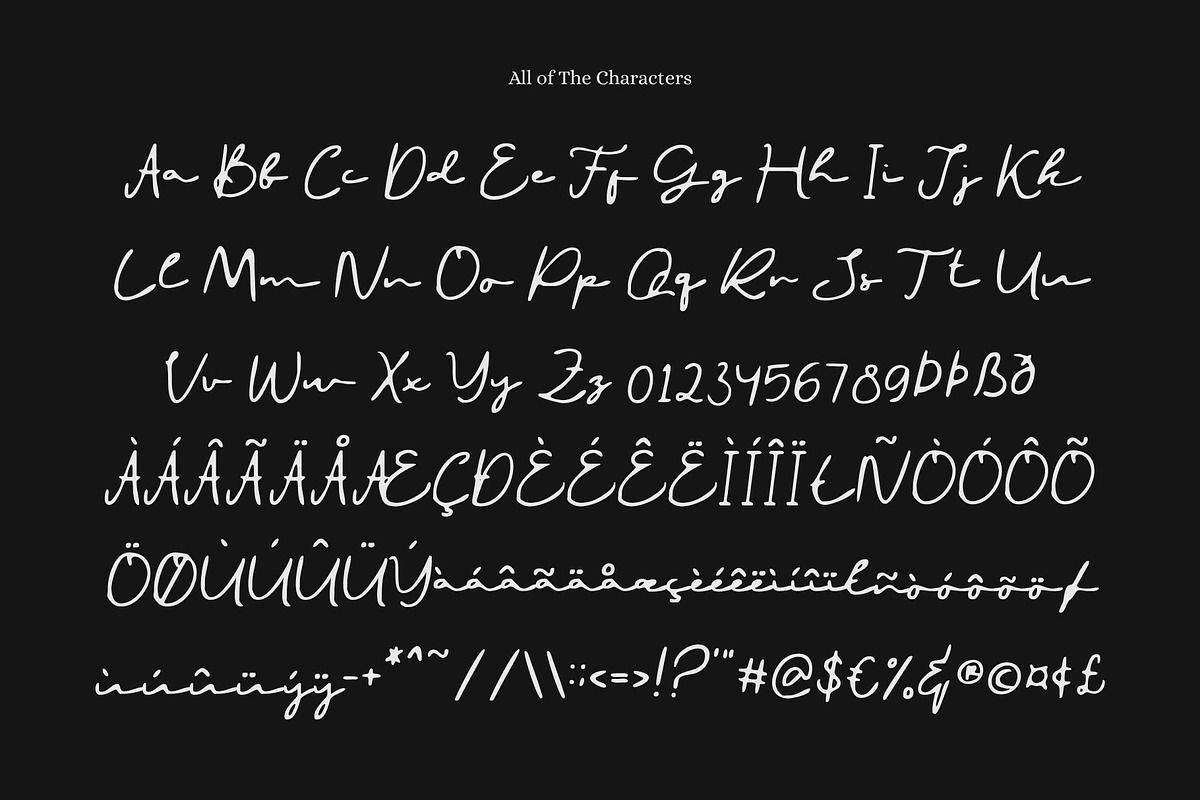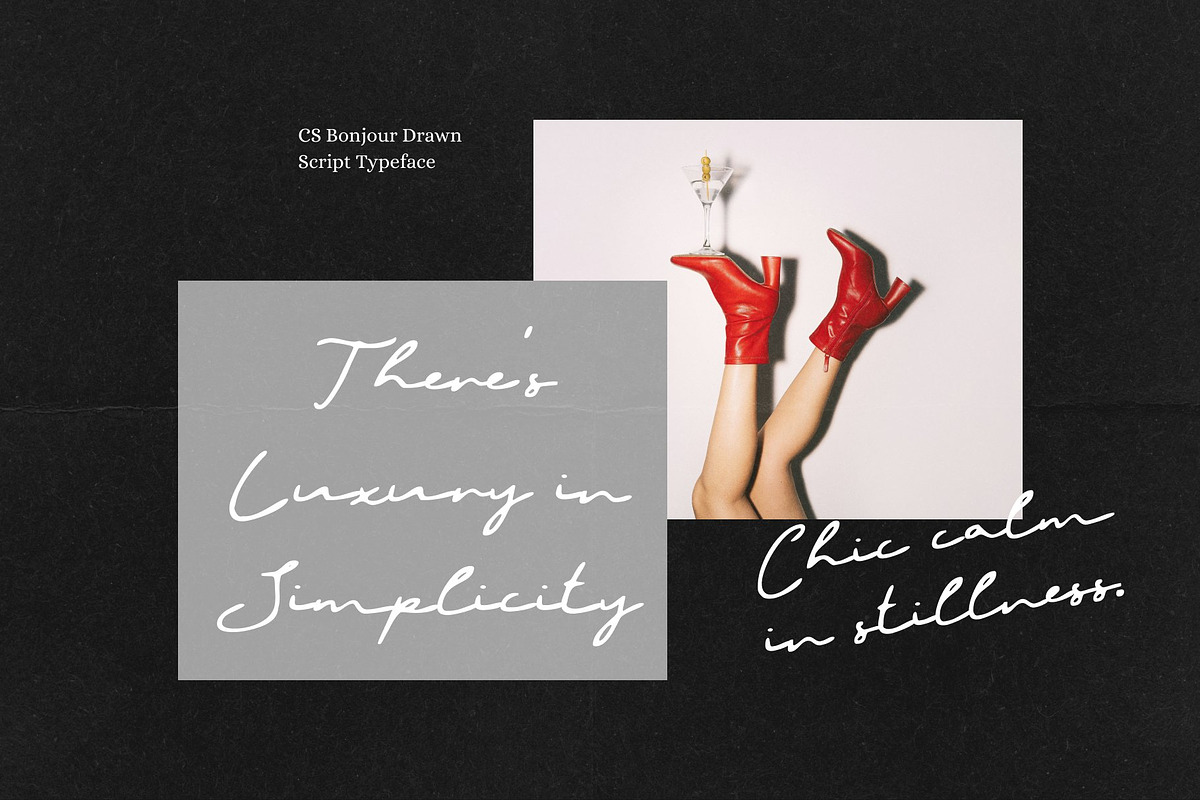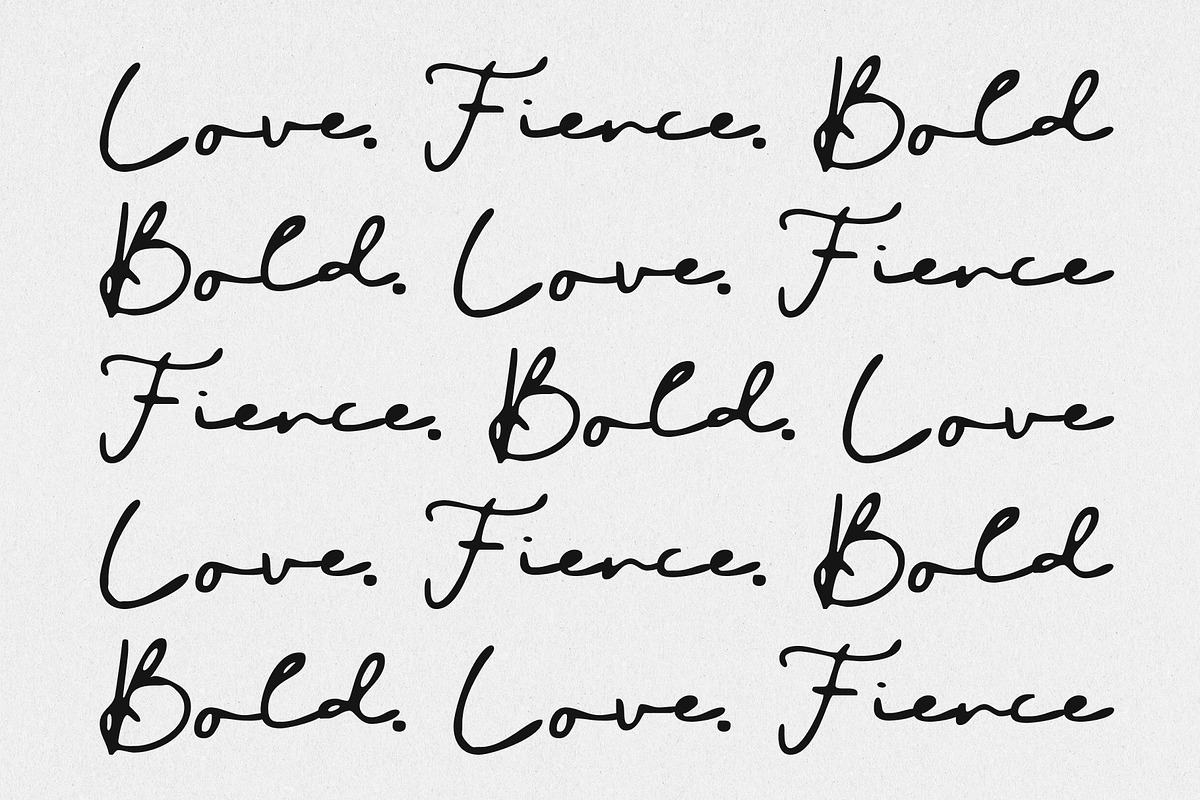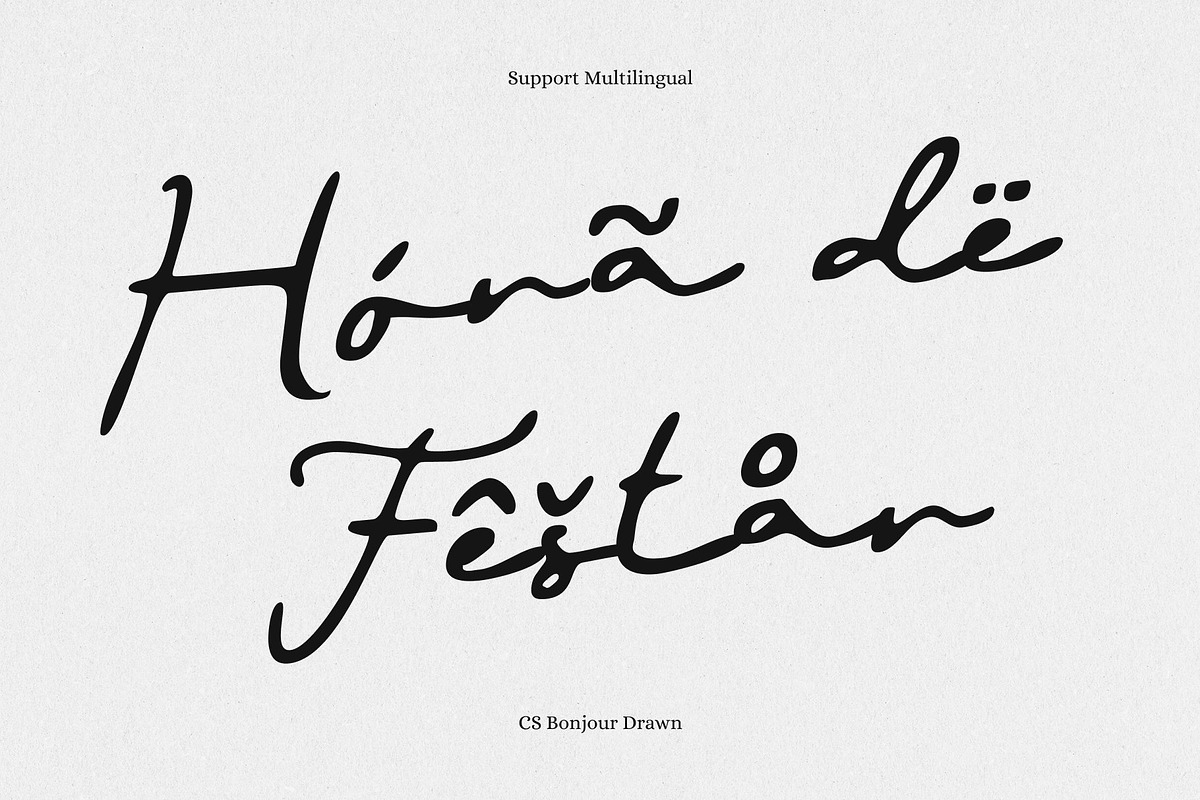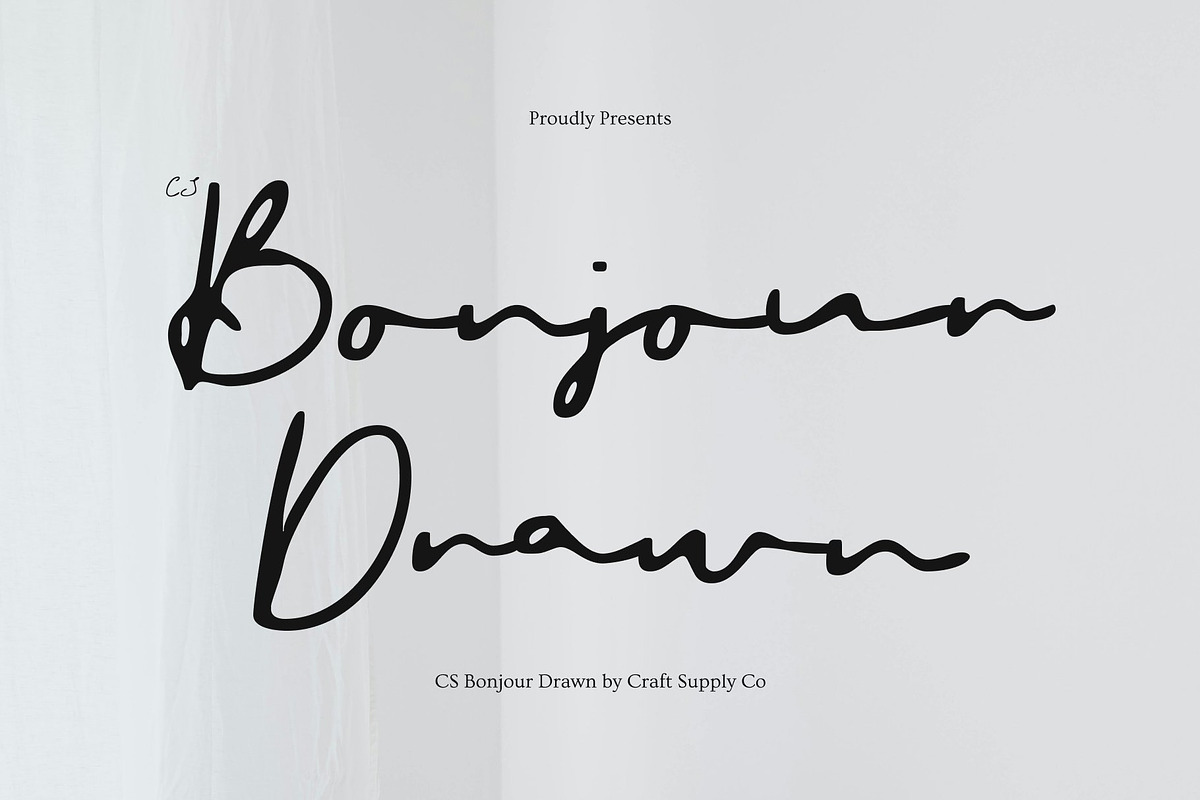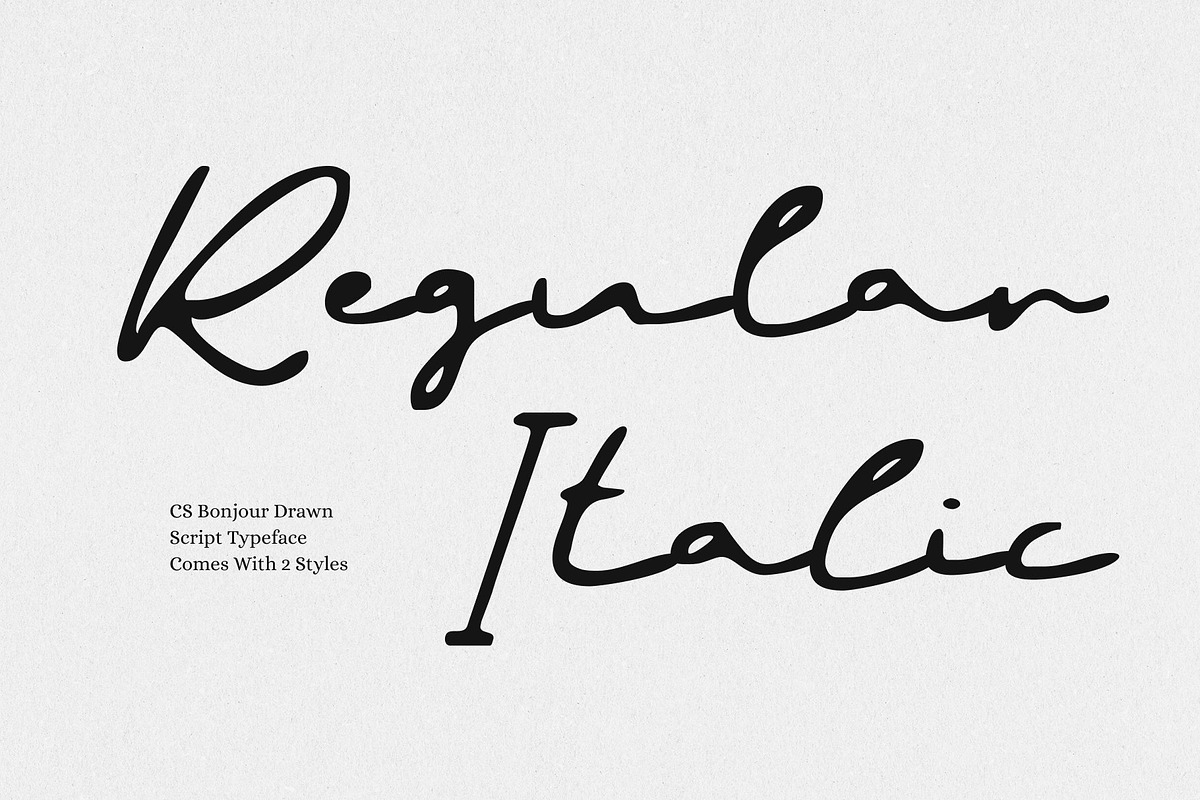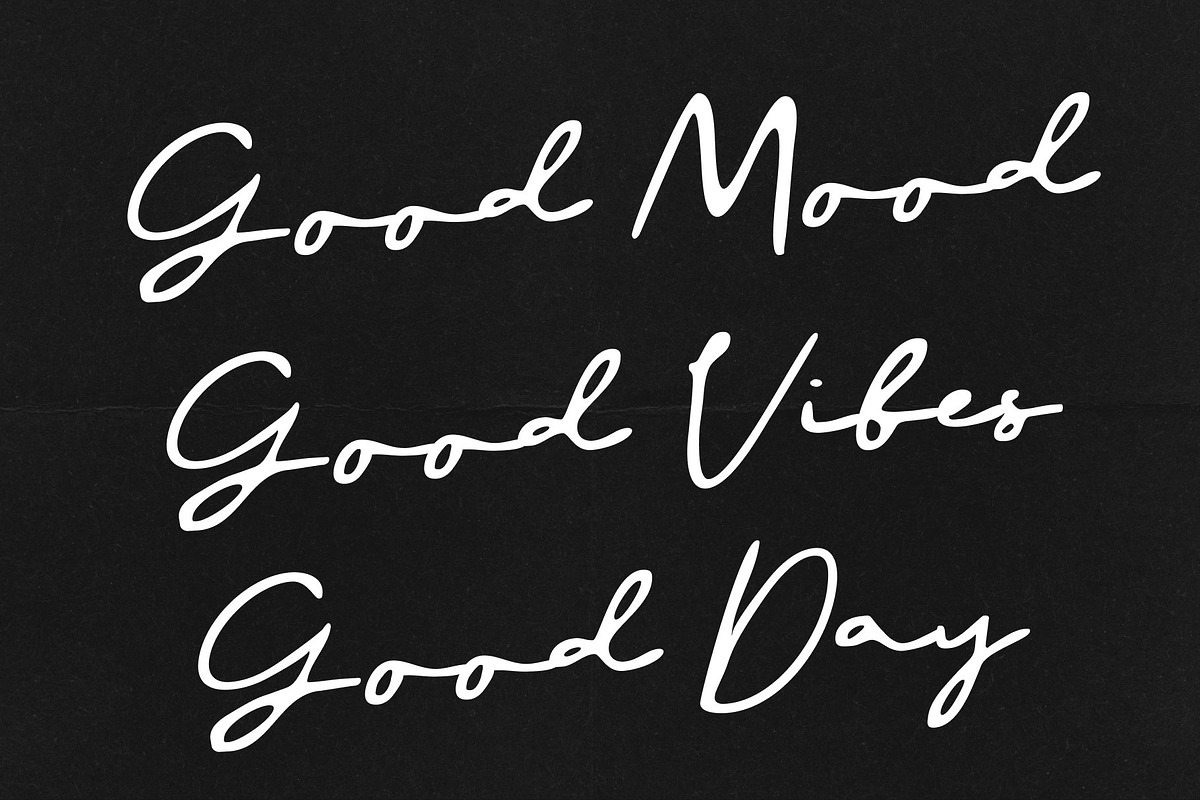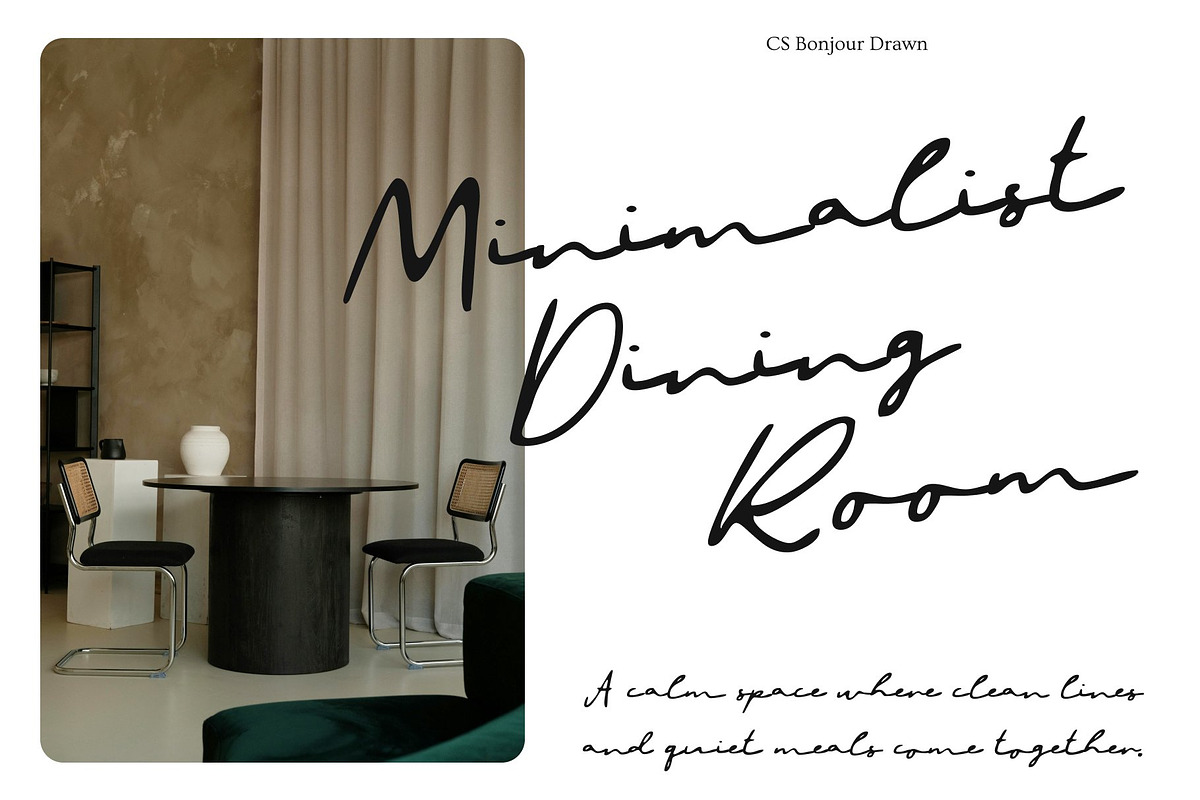
CS Bonjour Drawn
CS Bonjour Drawn – Elegant Signature Script with Personal Luxury Appeal
Refined Signature Style with Personal Authenticity This is a refined signature script font designed to capture the natural elegance of authentic handwritten signatures. Its smooth, confident strokes create a sophisticated handcrafted look that feels personal yet professional. Enhanced with a subtle drawn texture, the font delivers warmth and individuality, elevating visual identities with effortless charm.
Graceful Lines for a Luxurious Handwritten Feel Featuring delicate curves and expressive pen-like movements, this font offers a luxurious handwritten aesthetic that feels both modern and timeless. Organic stroke variations and flowing rhythm make each letter appear genuinely written by hand, resulting in a polished signature style that feels natural, fluid, and refined.
Perfect for Logos and Premium Branding This font excels in branding projects where personal identity and exclusivity matter. Its elegant script form enhances logos, brand marks, and taglines with a sense of confidence and prestige. Ideal for fashion labels, beauty brands, boutique businesses, and lifestyle creators, this font communicates authenticity, elegance, and high-end appeal.
Ideal for Luxury Invitations and Stylish Print Designs From wedding invitations to upscale event stationery, this font brings emotional warmth and refined beauty to every layout. Its graceful script creates memorable visuals that feel intimate and artistically crafted, making it perfect for designs that demand personal luxury and timeless sophistication.
- CS Bonjour Drawn Regular
- CS Bonjour Drawn Italic